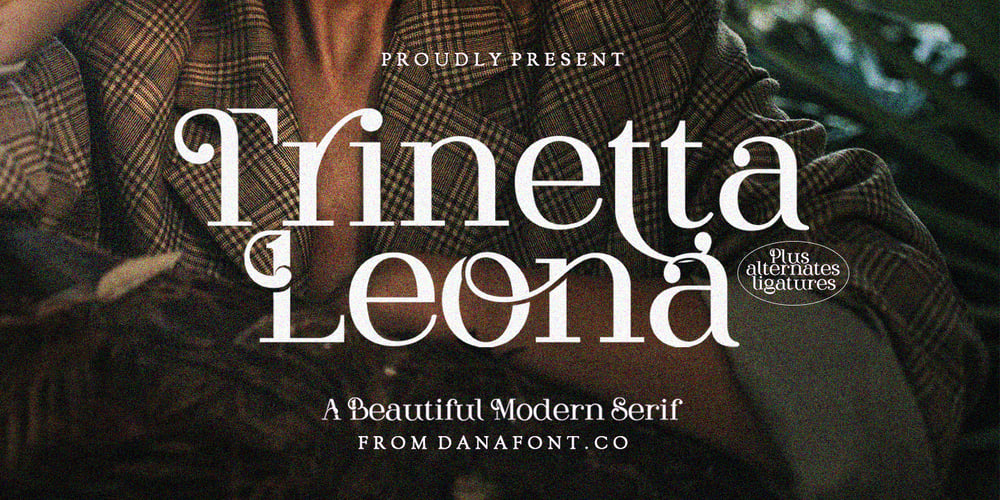
Trinetta Leona
Trinetta Leona font
Trinetta Leona Font Family was designed by Muhammad Alkaf and published by Muhammad Alkaf. Trinetta Leona contains 1 styles and family package options. New Trinetta Leona Modern Serif designed typefaces are here to update your font library!These professional resources are also sophisticated because every font has his own magic design. You can use them for pretty much everything like blog header, posters, wedding elements, t-shirt, apparel, cover books, business cards, greeting cards, branding, invitations and quotes and so on.Features: Uppercase Lowercase Numeral Accent (multilingual characters) Ligature Stylistic Sets How To Access Alternate Characters:https://www.youtube.com/watch?v=Go9vacoYmBwhttps://www.youtube.com/watch?v=XzwjMkbB-wQhttps://www.youtube.com/watch?v=x1A_ilsBsGshttps://www.youtube.com/watch?v=xFlMwARHusYhttps://www.youtube.com/watch?v=NVJlZQ3EZU0 Thanks for your purchase!